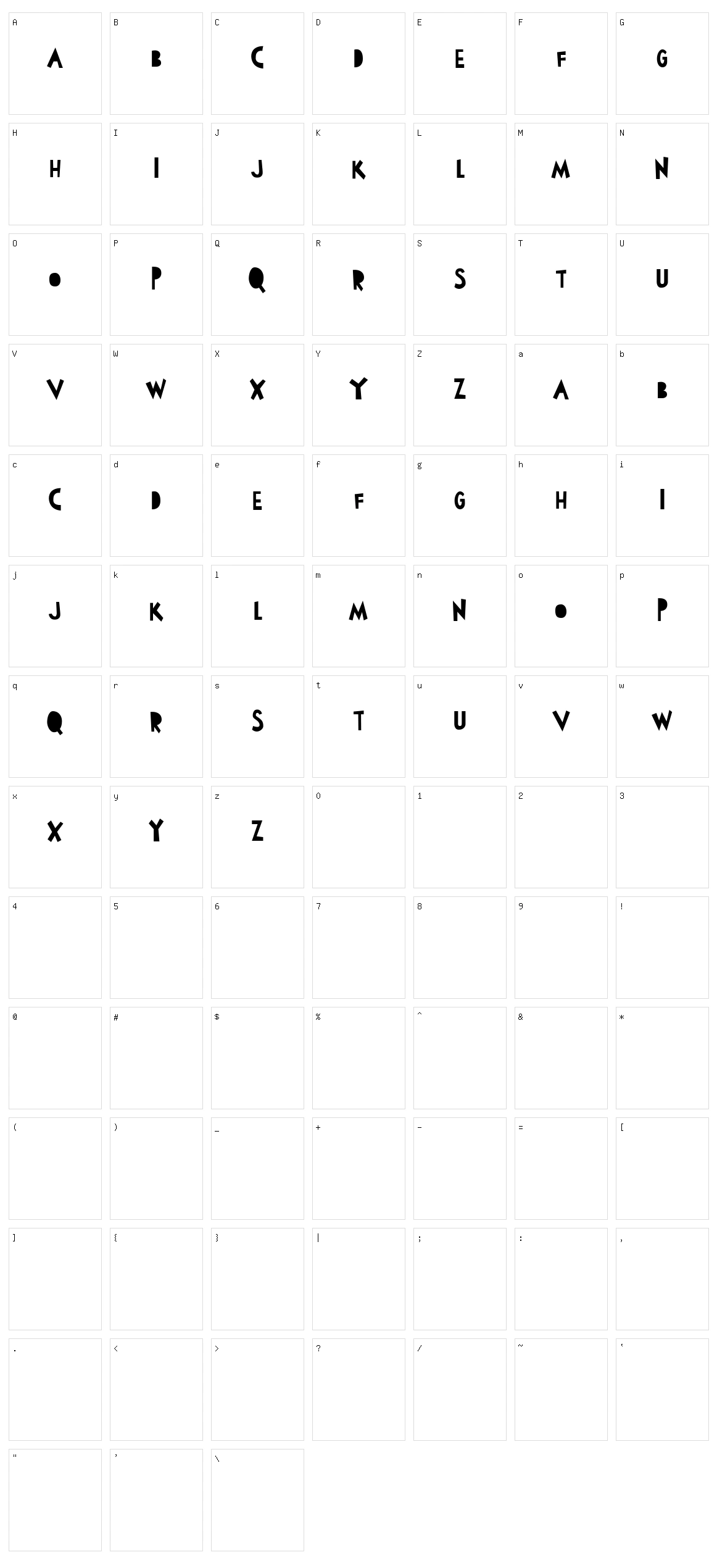
The free font Walter Goes To America is carefully designed by 28fonts, showcasing a thoughtful balance of creativity and usability and falls under the Cartoon font style. When you download the ZIP file, it contains only 7.2 KB of font files, making it lightweight and quick to download. Please review the license details below to understand permitted usage and distribution rights. If license information is not available, we recommend using this font for personal projects only or contacting the author directly for commercial usage permissions.